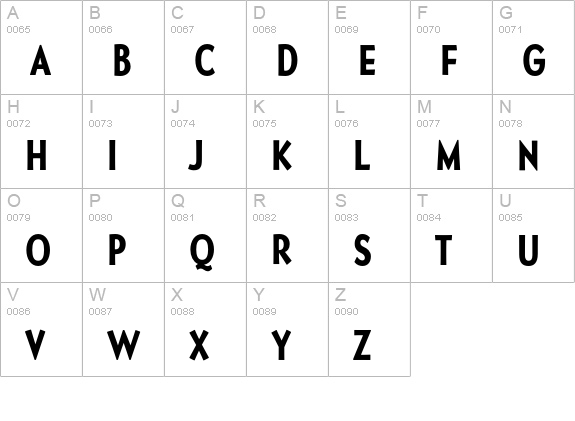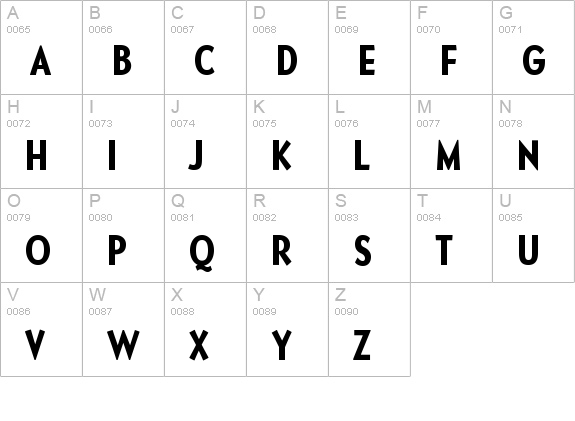
GolucianBoldCondensed Font Details
GolucianBoldCondensed font exudes a sense of strength and boldness with its condensed design. The sharp angles and clean lines of this font make it perfect for creating impactful headlines, titles, and branding materials. Its modern and sleek appearance adds a touch of sophistication to any project. The GolucianBoldCondensed font is ideal for conveying a sense of power and authority, making it a popular choice for logo design, posters, and advertising campaigns. Its versatility allows it to be used in a variety of design projects, from digital to print media. Best of all, GolucianBoldCondensed font is completely free to download at FontsMarket.com. This means you can easily access this stylish and eye-catching font to elevate your designs without any cost. Don't miss out on the opportunity to enhance your projects with the striking GolucianBoldCondensed font today!